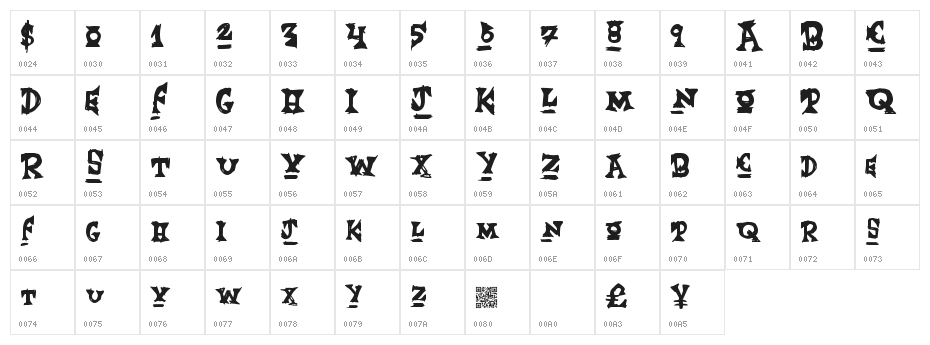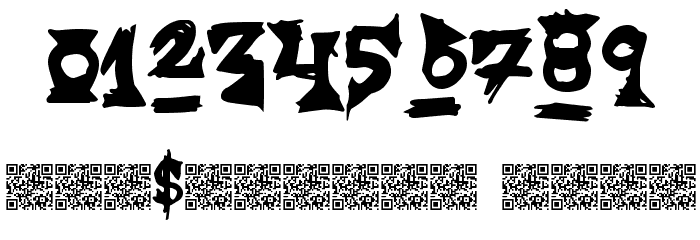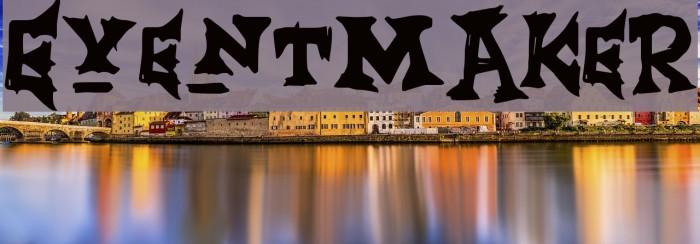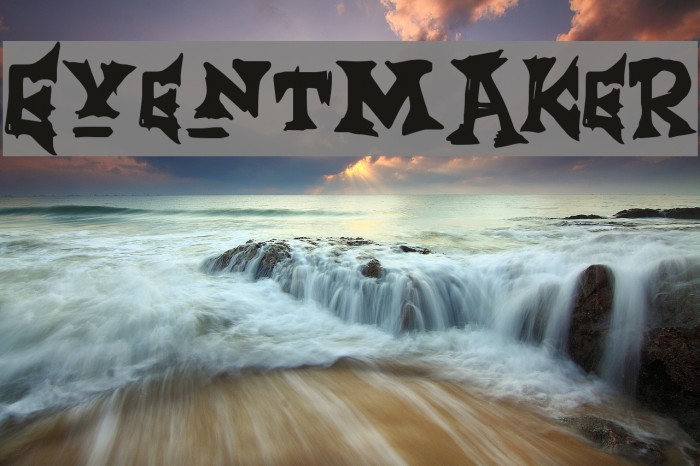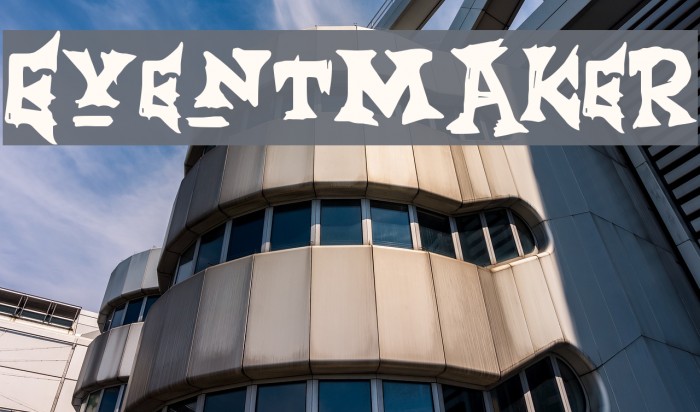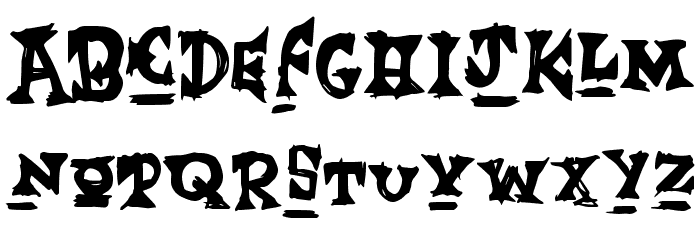
EventMaker Font
EventMaker Description
This font features a bold and dynamic style with a distinctly edgy and aggressive appearance. The characters are heavily stylized with sharp angles and irregular shapes, giving it a unique and rebellious look. The uppercase and lowercase letters maintain a consistent design, with exaggerated serifs and a slightly distressed texture that adds to its rugged charm. The numbers and special characters follow the same aesthetic, ensuring a cohesive appearance across all glyphs. This font is perfect for projects that require a strong visual impact and a touch of unconventional flair.
| Overall Style | Modern, Edgy |
| Proposed Projects | Ideal for music album covers, skateboarding brands, streetwear designs, and event posters. |